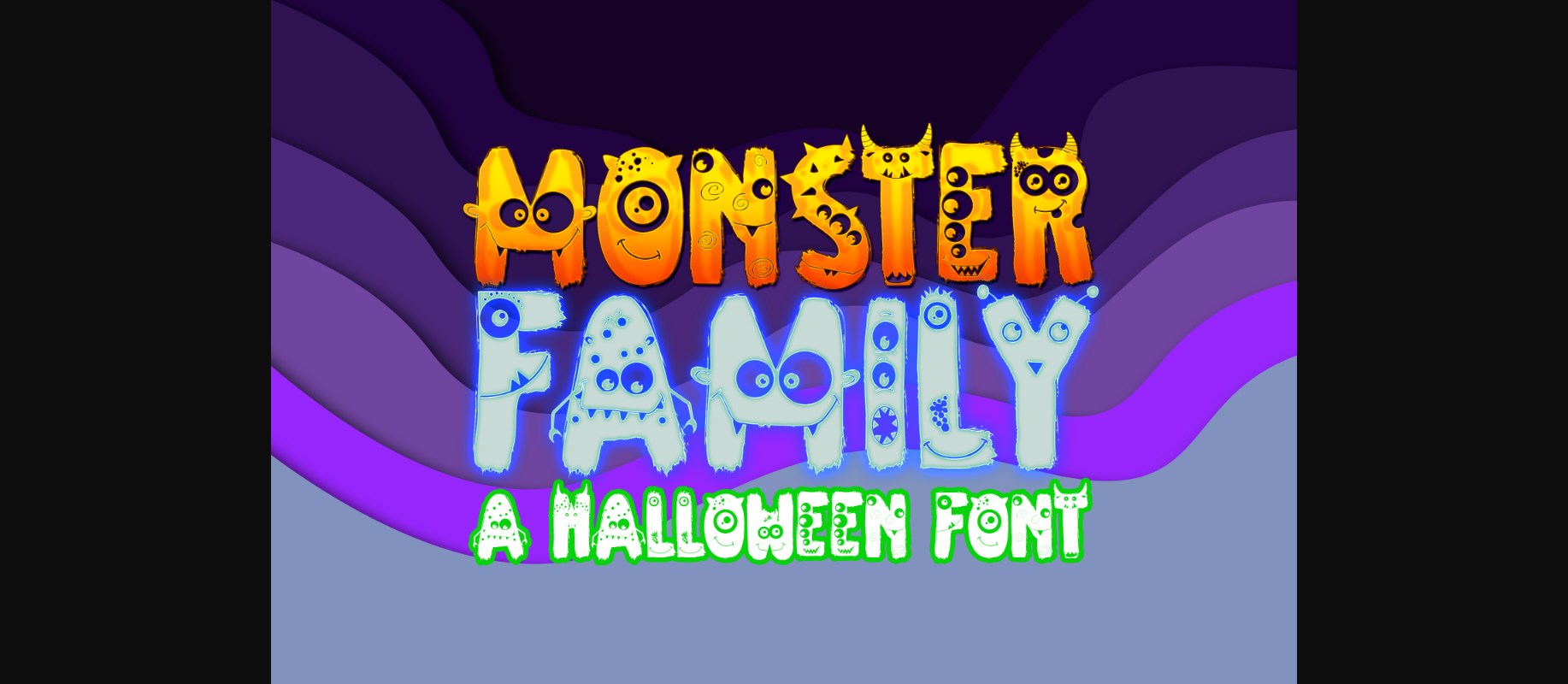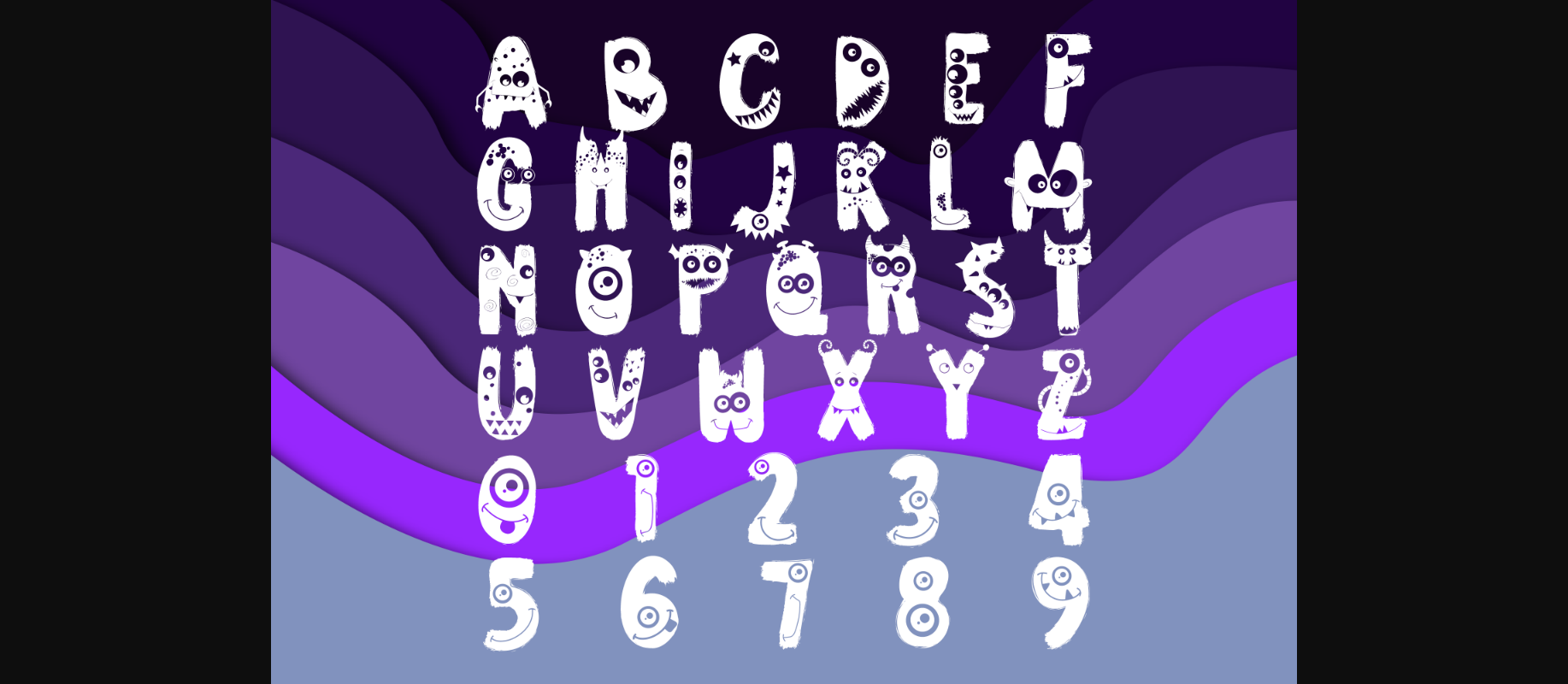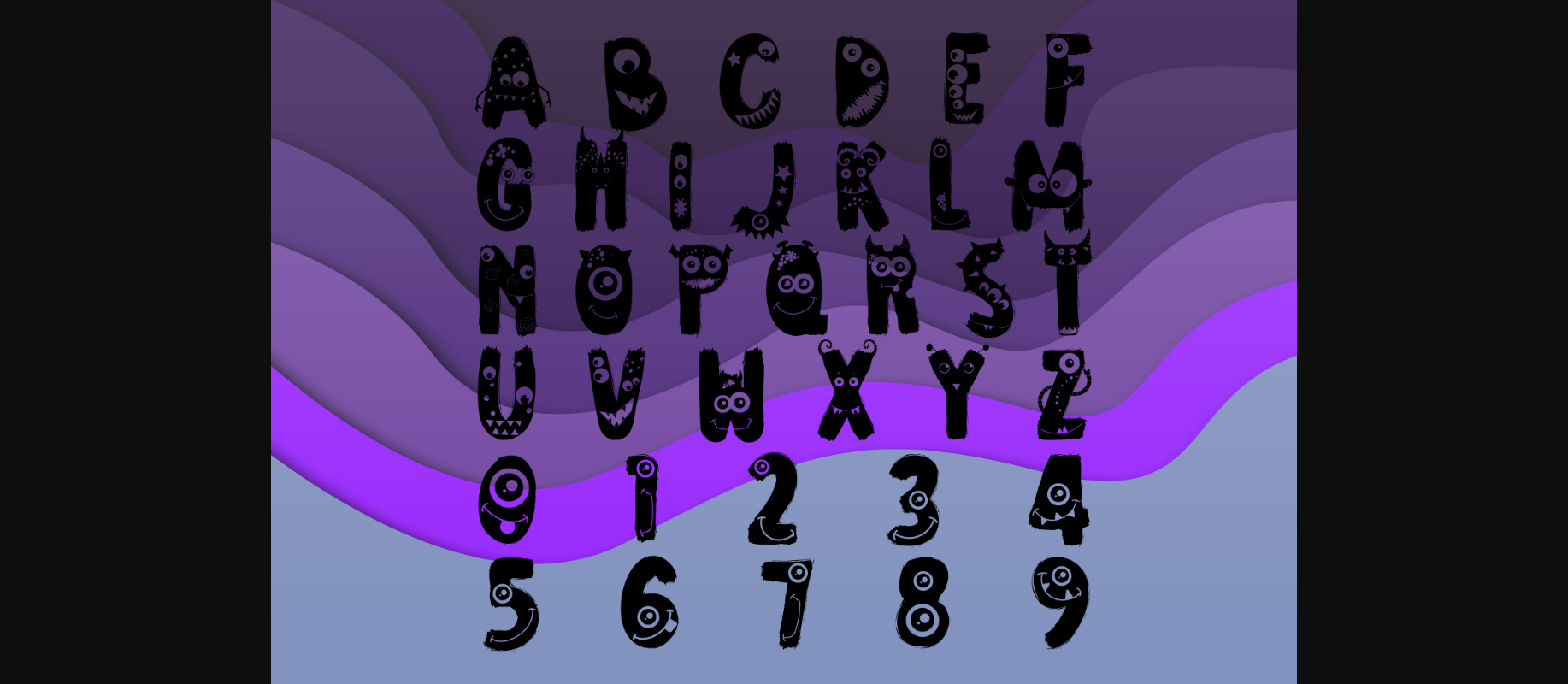
Monster Family Font
About Monster Family Font
Monster Family is an incredibly cool decorative font. Whether you use it for cartoon-related designs, children games, or just any creation that requires a lovely touch, this font will be an amazing choice.